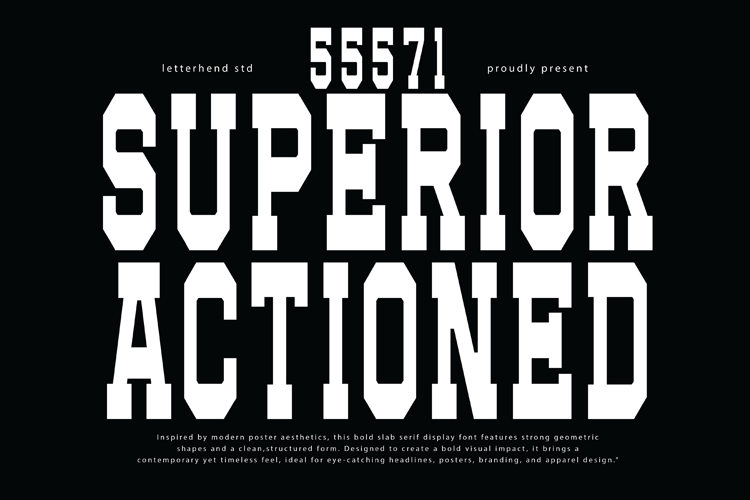
Superior Actioned Distort Font
Distort Style
Superior Actioned comes in loud and steady—big, bold slab serif shapes with that no-nonsense, poster-ready punch. The letters feel solid like stamped metal, sharp on the edges yet clean in structure, giving off a strong, sporty, vintage-industrial vibe. Built to stand tall on headlines, logos, posters, and branding, this font delivers instant impact with a confident rhythm that feels both classic and fresh.